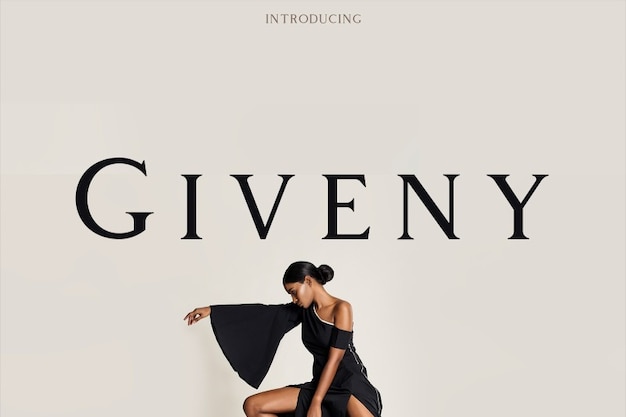
Giveny
Giveny Font
Giveny font is the embodiment of modern elegance and stylish simplicity. Each character is a testament to contemporary design, transforming your text into a sleek and sophisticated work of art. Ideal for projects that demand a clean, stylish, and timeless look. Giveny seamlessly blends elegance with modernity, making your words a captivating expression of refined style.